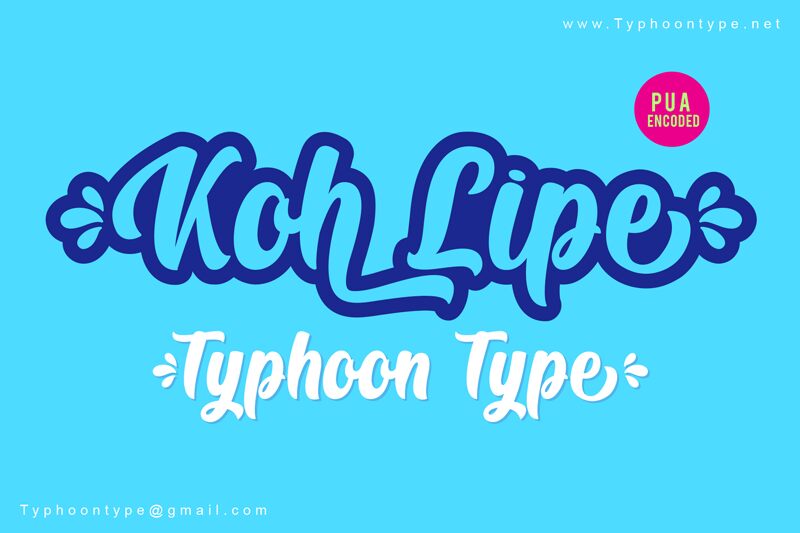
Koh Lipe Shadow is a bold brush typeface designed by Suthi Srisopha of Typhoon Type.
Type ( before word to get beginning splash and Type ) after word to get the ending splash.
Example : (Koh Lipe)